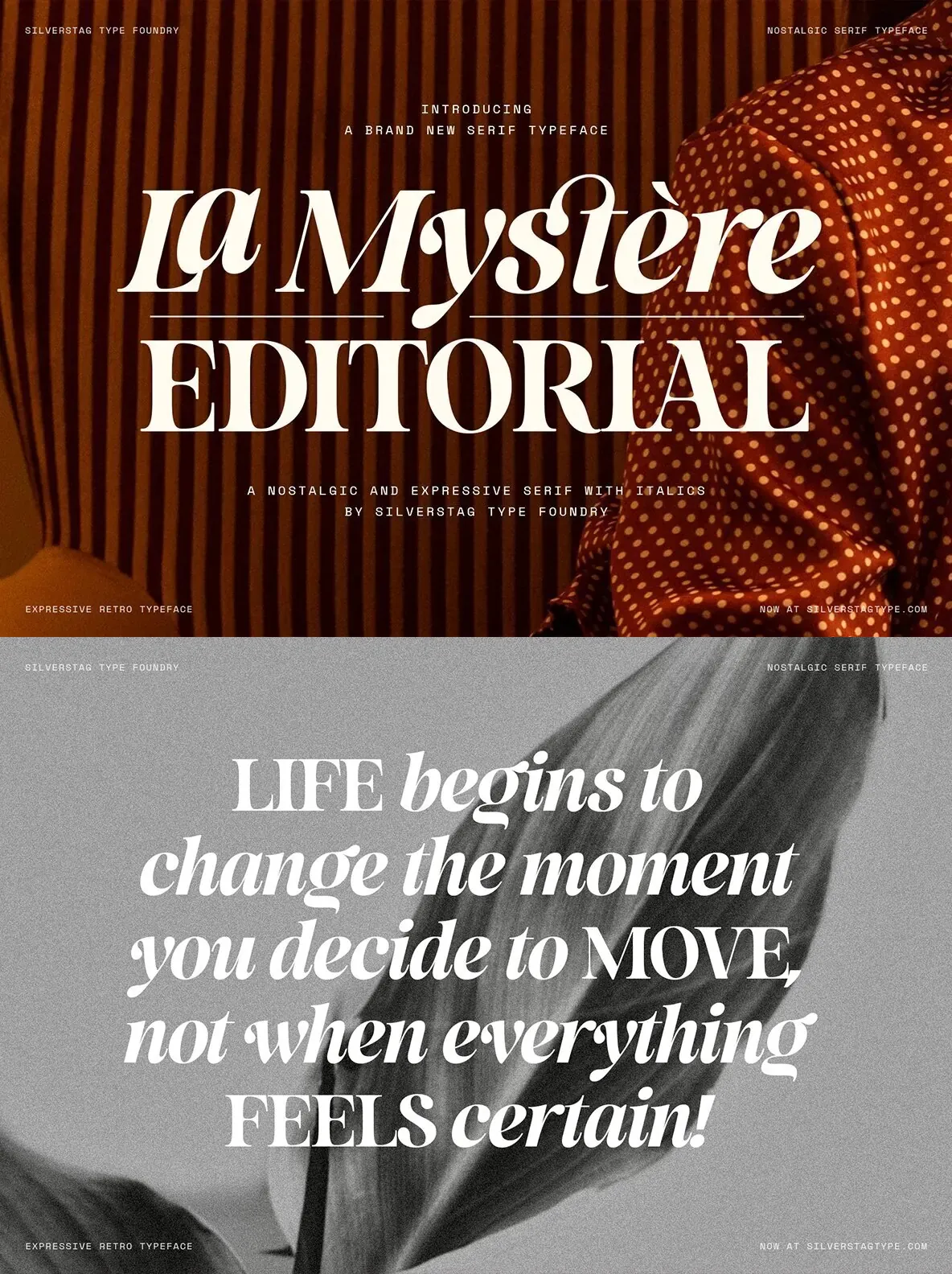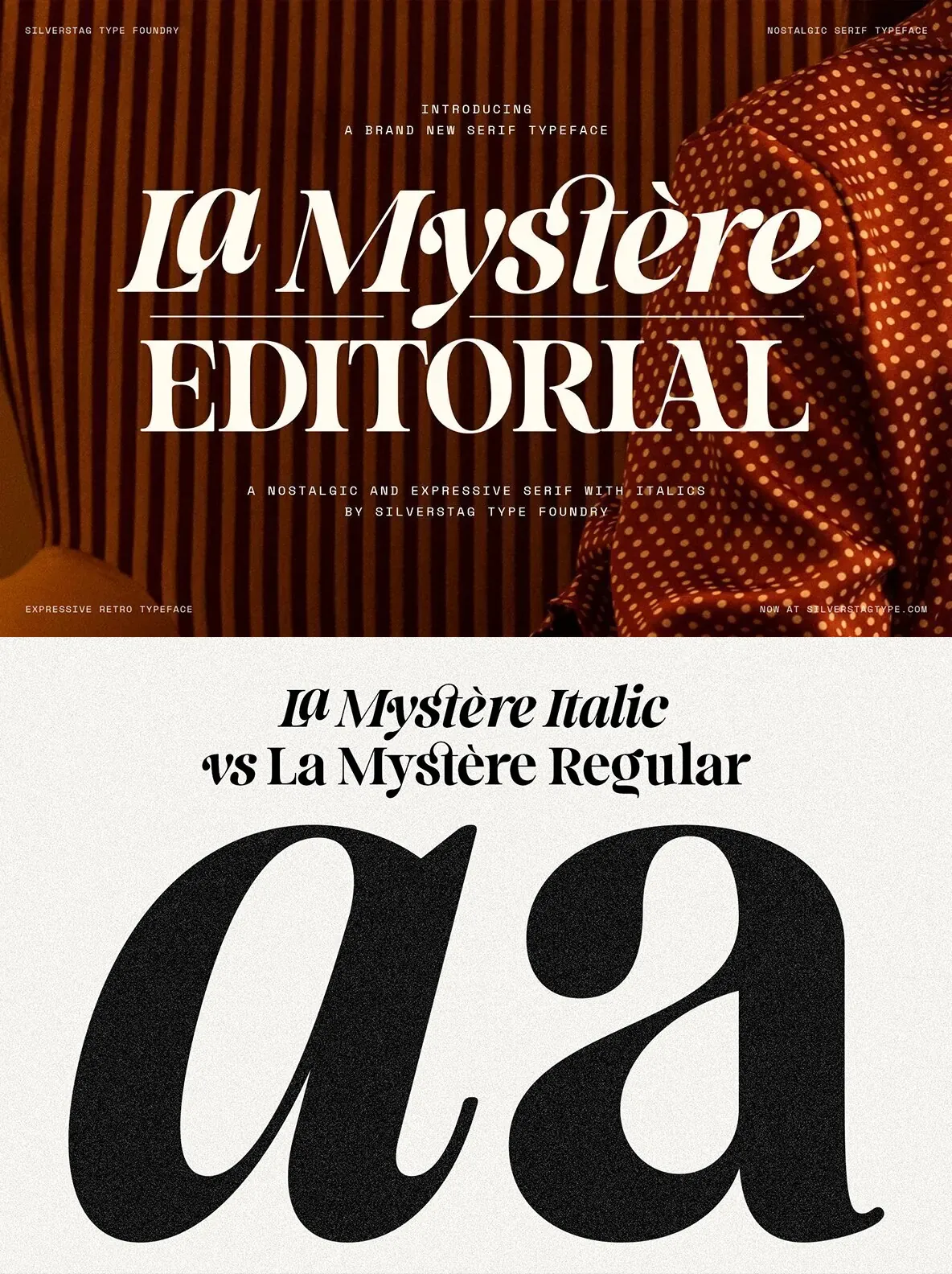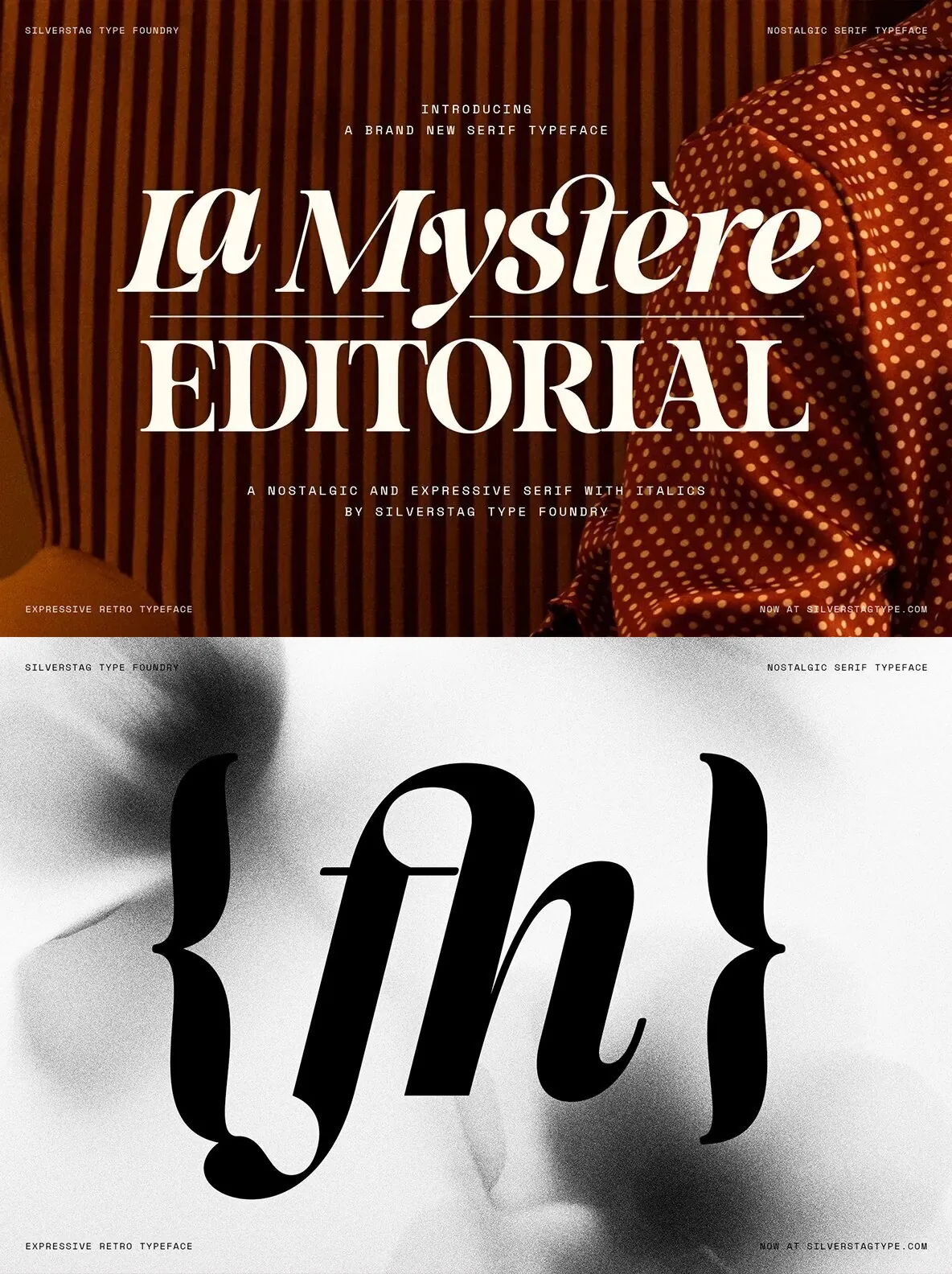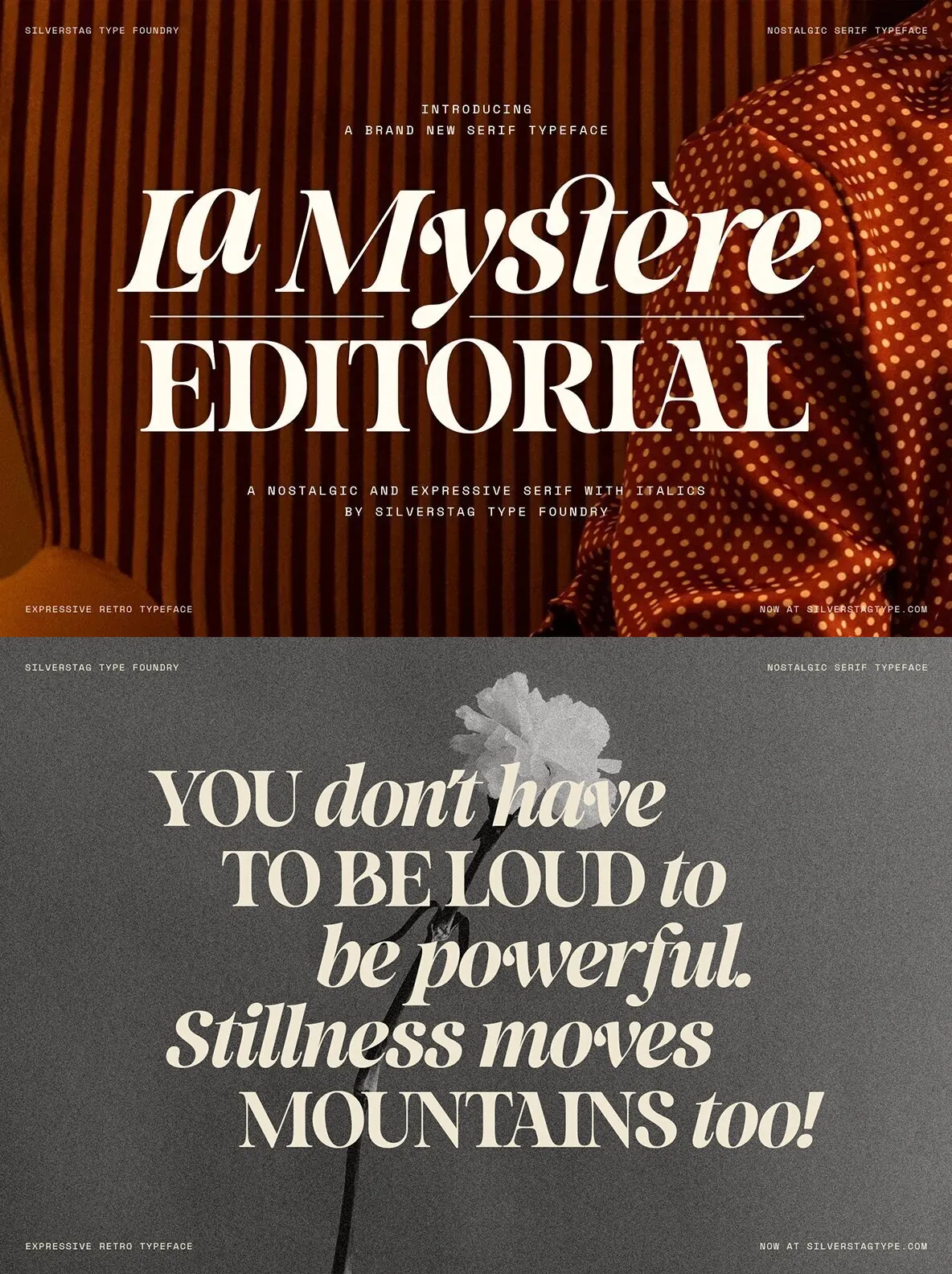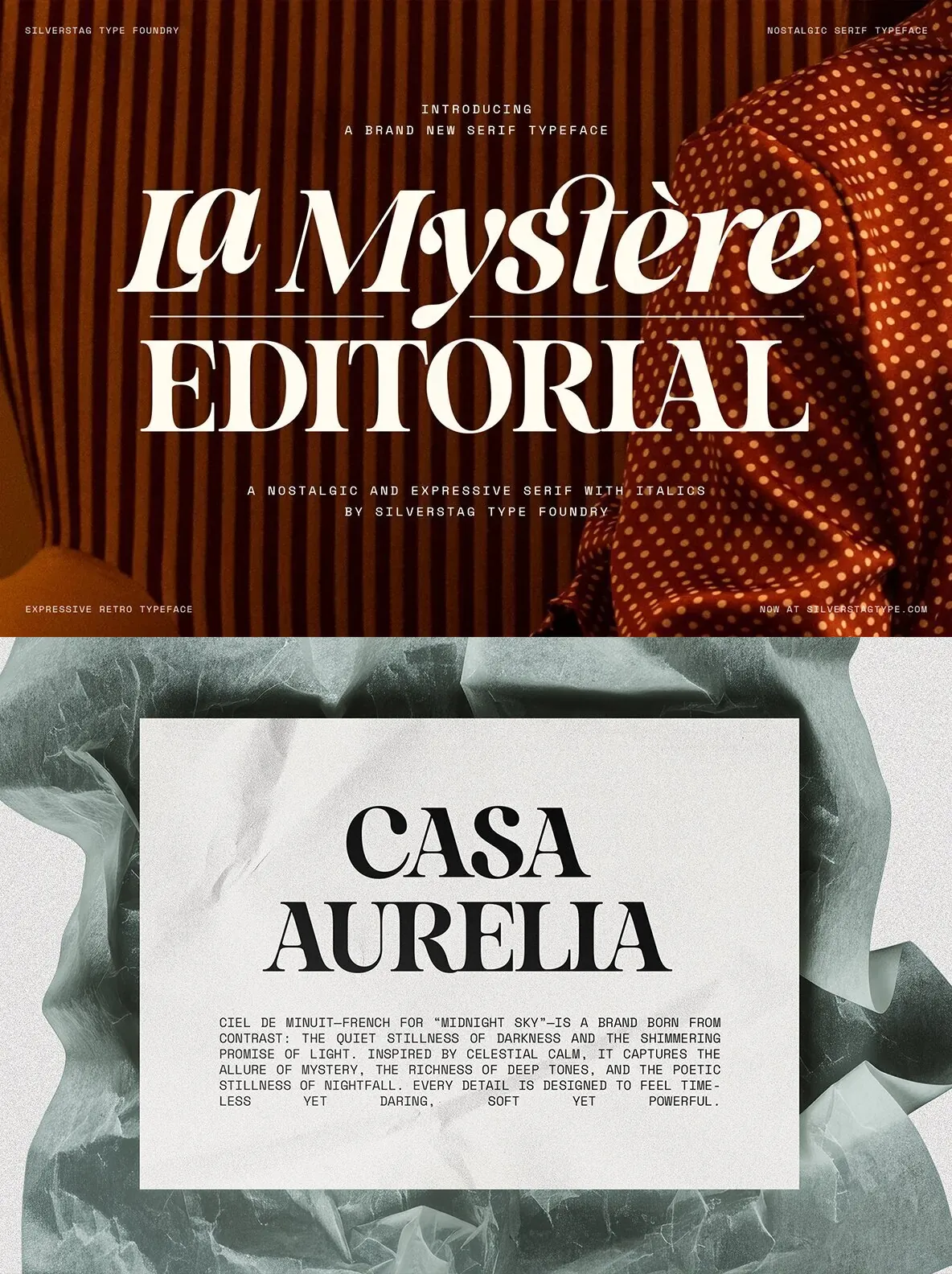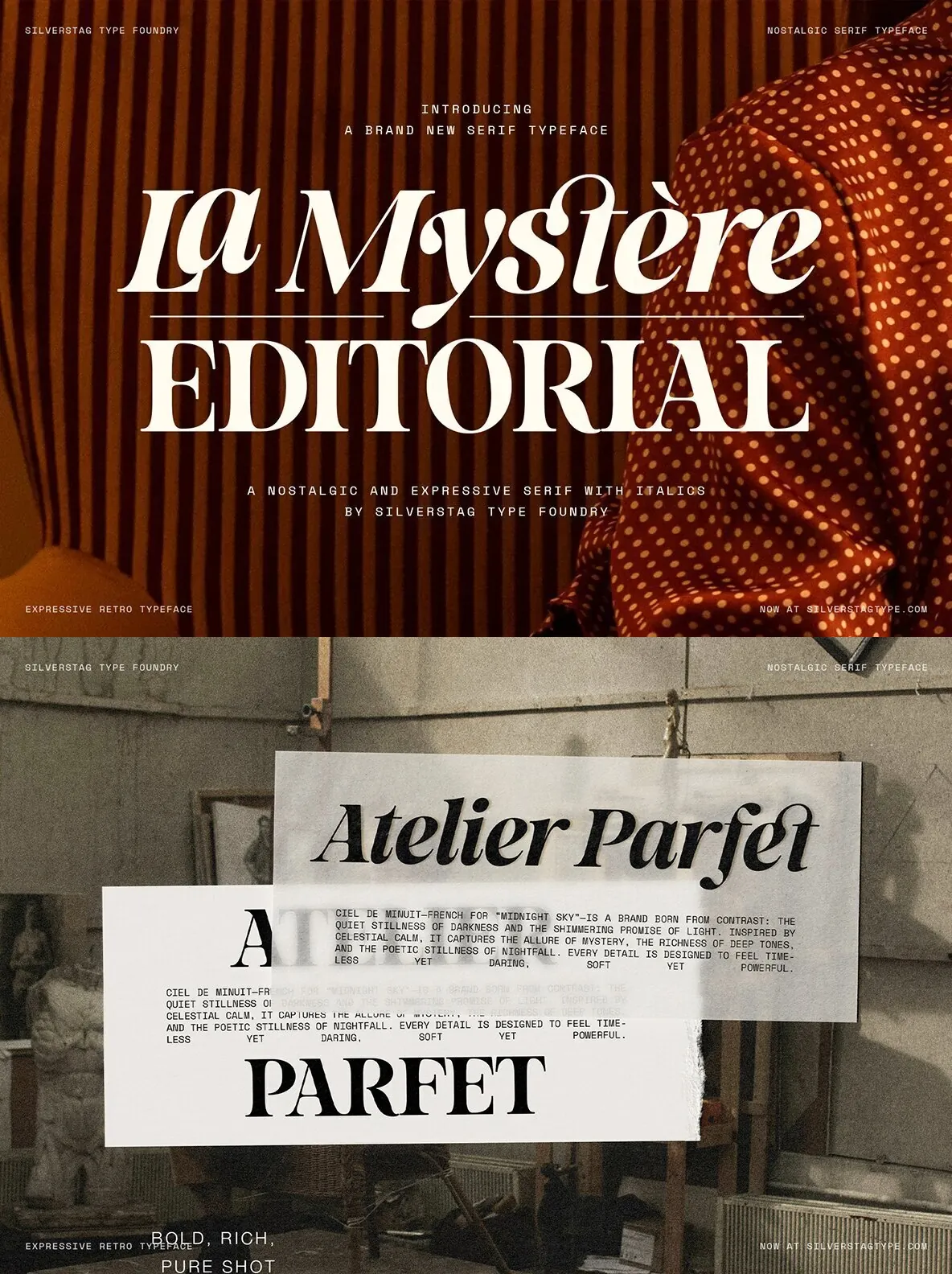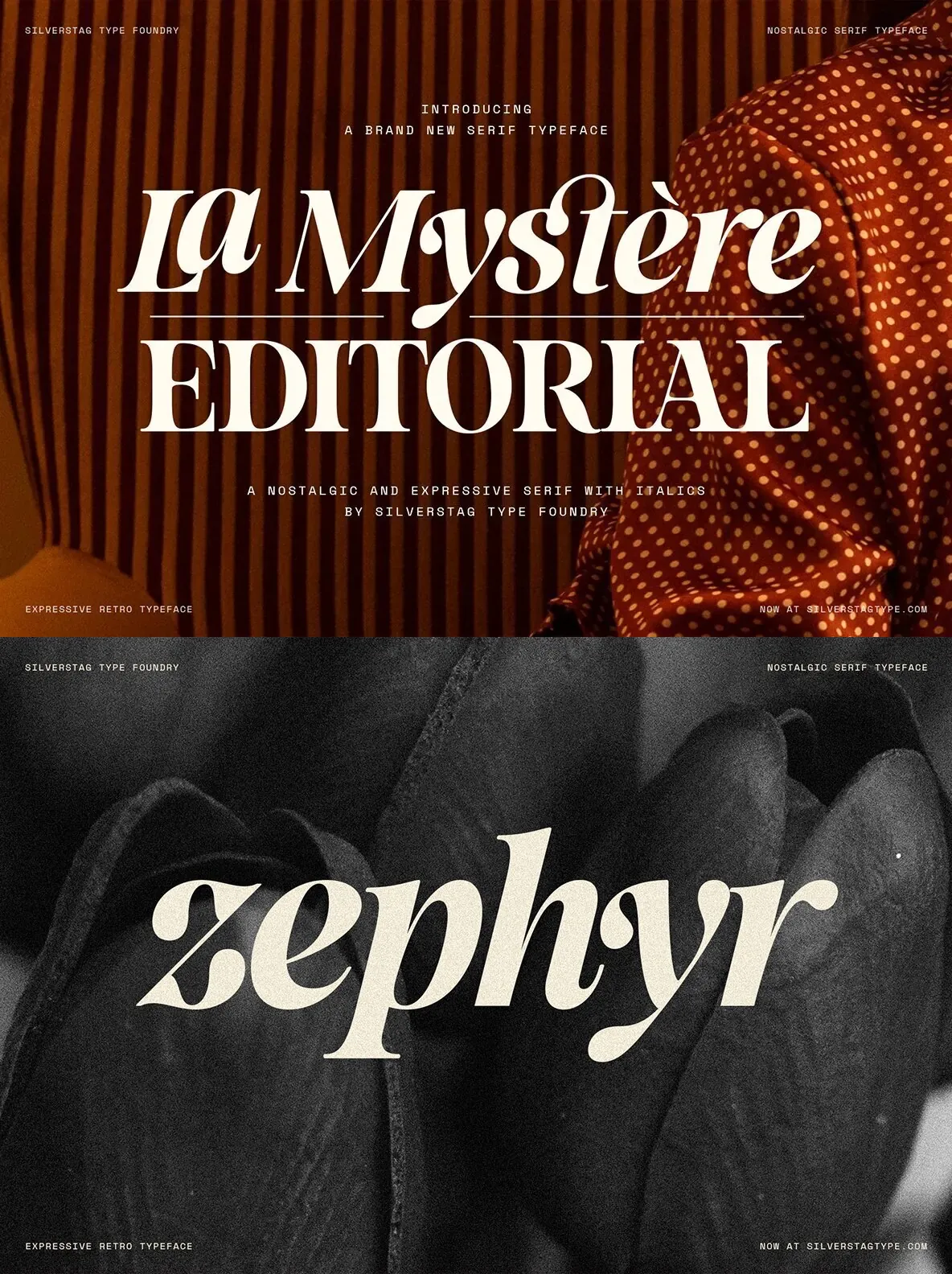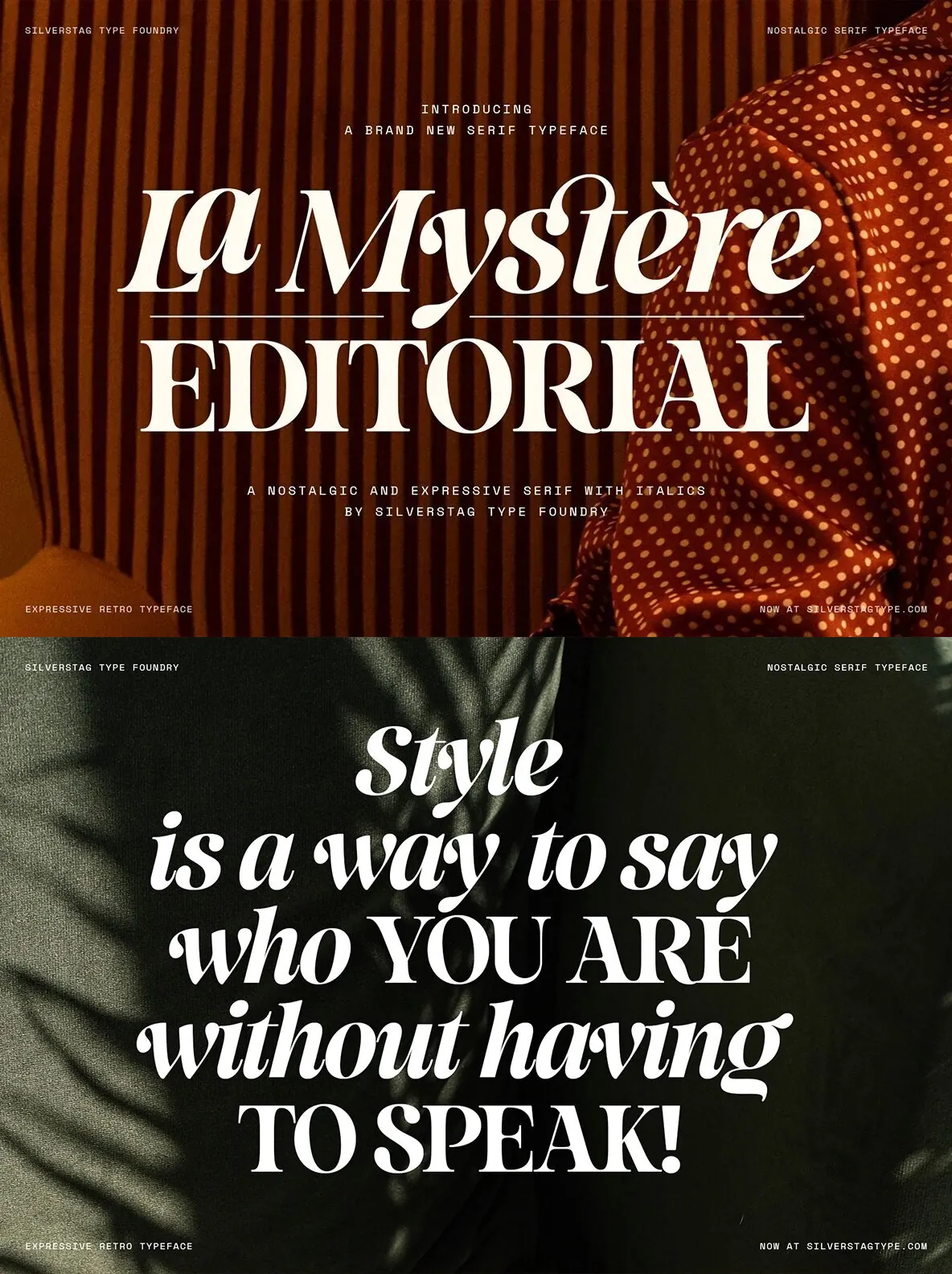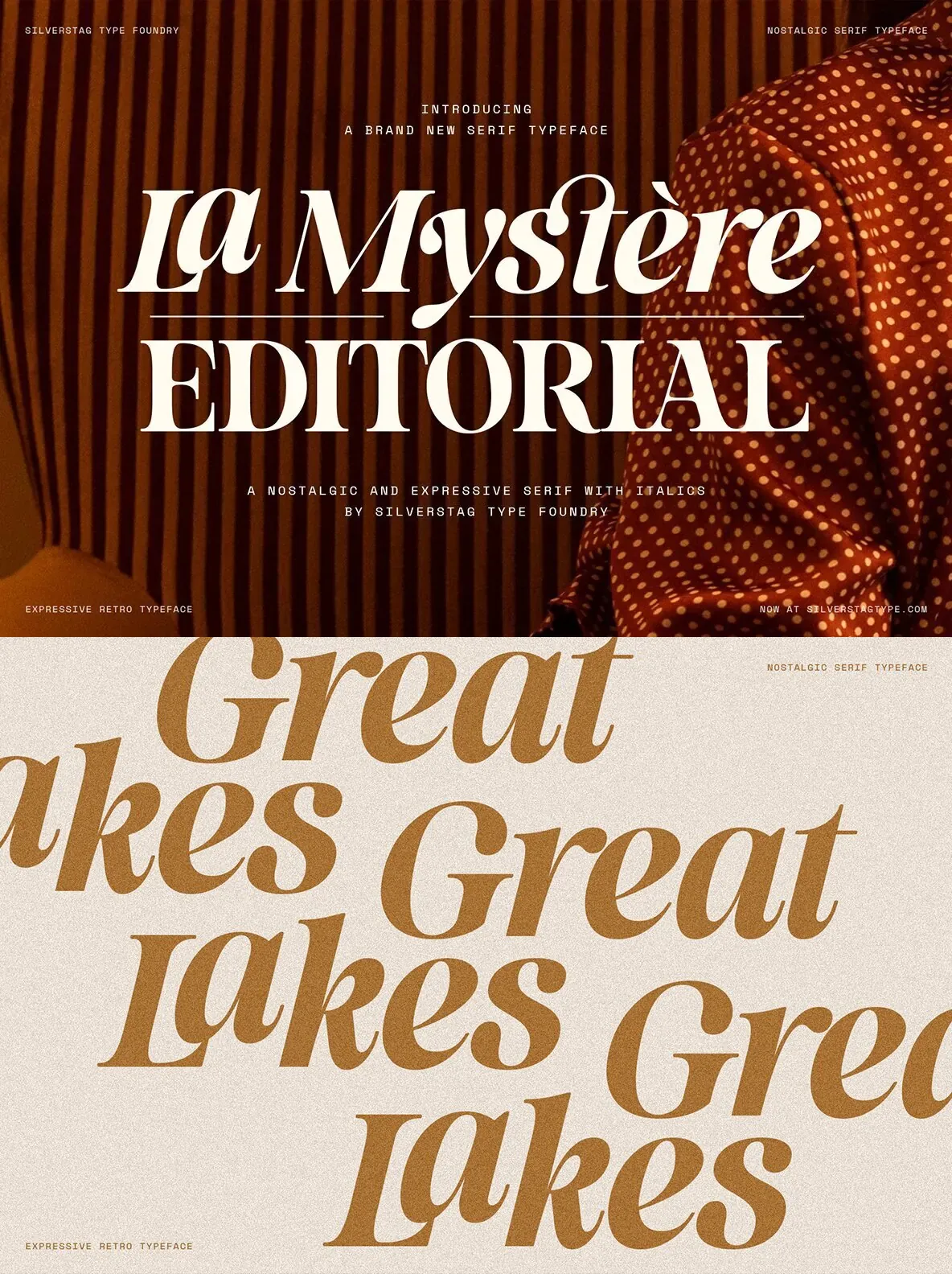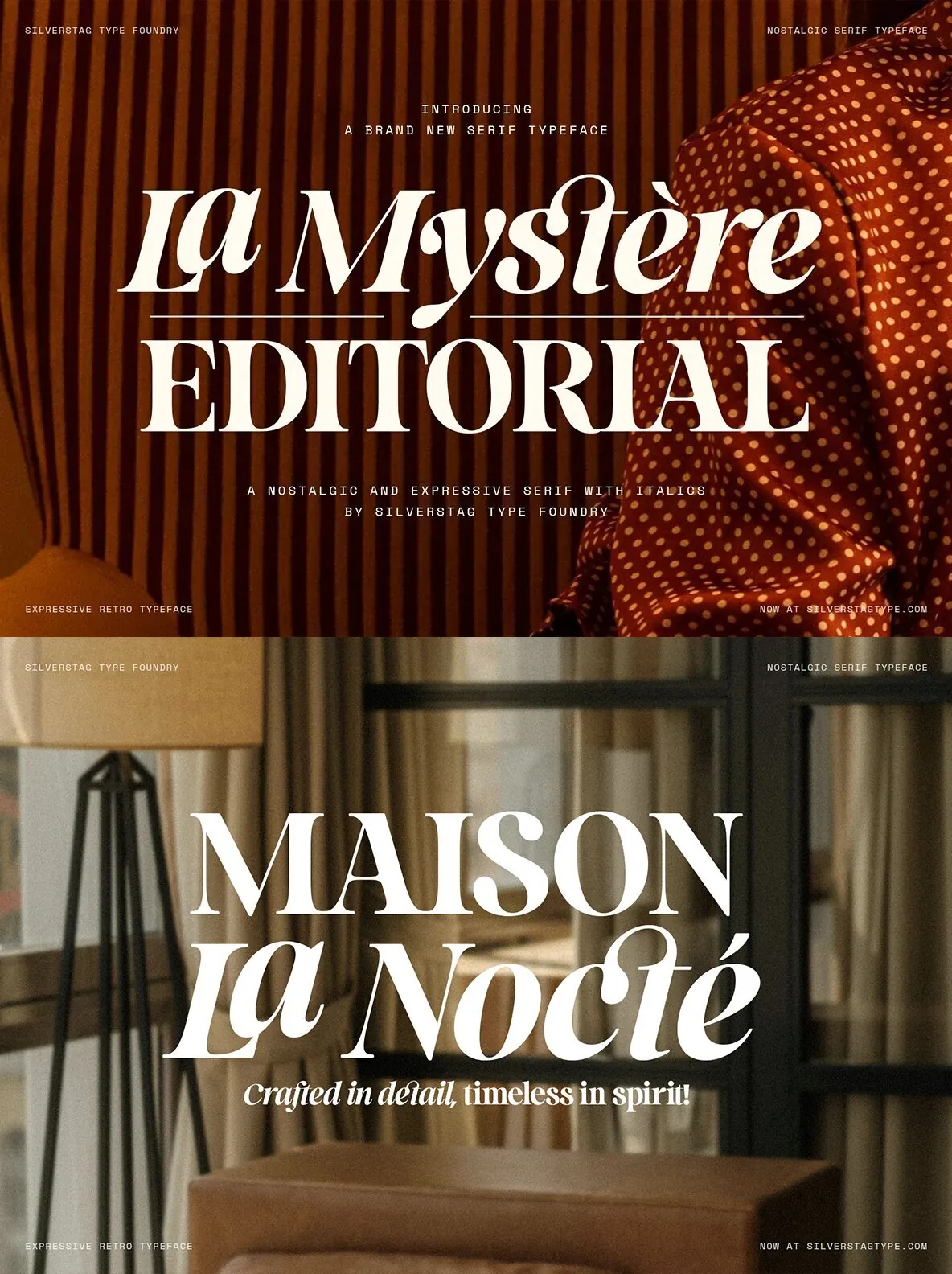
SLTF La Mystère — High-Contrast Editorial Poise
SLTF La Mystère is a serif typeface that balances bold ambition with delicate sophistication. Its expertly drawn curves and carefully shaped serifs give it a confident voice on the page. Inspired by classic letterforms while keeping a contemporary edge, La Mystère suits premium typography where detail matters—especially in editorial design and luxury branding.
Use SLTF La Mystère for magazine layouts, fashion-forward identities, book covers, packaging, and refined social media assets. The family currently includes two styles—Regular and Italic—so you can shift tone without losing consistency. Version 1.0 is available now, with an anticipated update at the end of September introducing 9 weights per style. Early buyers will receive future enhancements at no extra cost.
Features
Two styles: Regular and Italic
High contrast serif with soft curves and rounded details
Ideal for editorial, fashion, packaging, and branding
Comprehensive multilingual support – over 100 languages
Includes punctuation, numerals, and standard OpenType functionalities
Designed with elegance and practical use as priorities